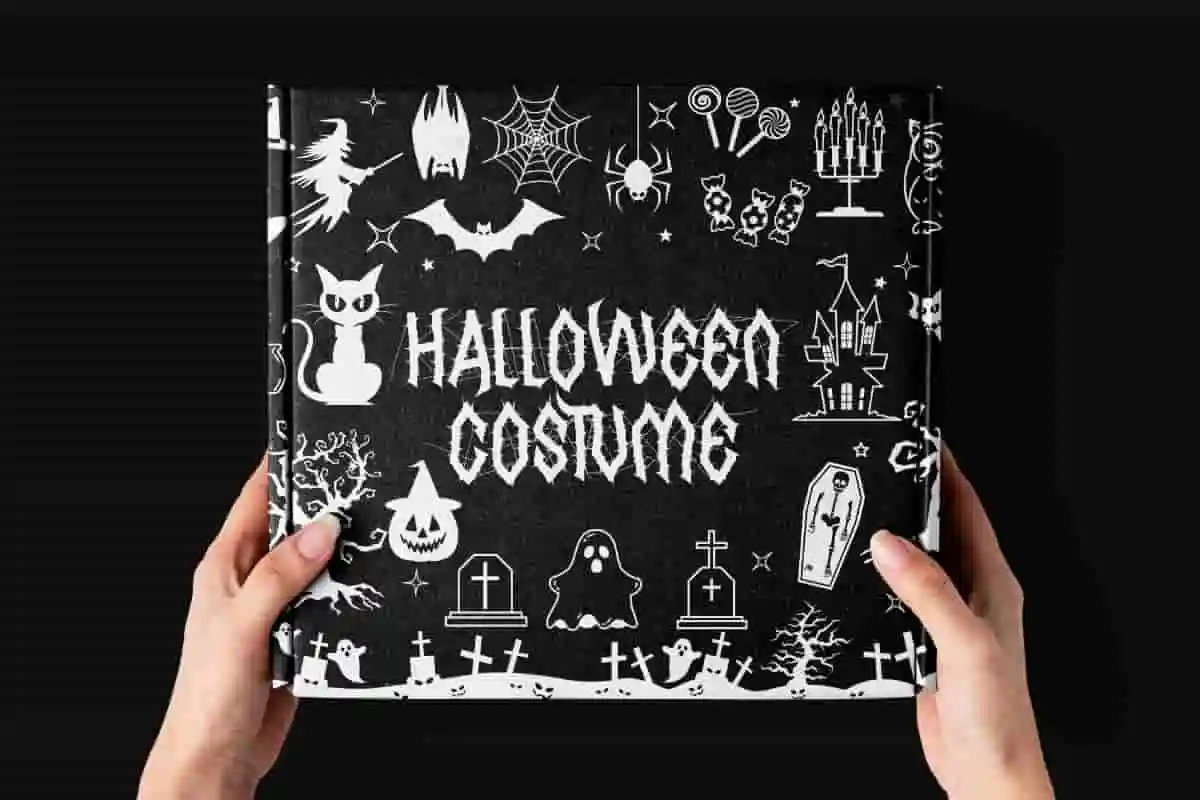
Psychodrama Font is a horror hardcore black metal display font by NoahType. This font has a black metal concept which is enhanced with thick lines which give an even more scary impression. It will be perfect for any designs, such as brand image, cover, custom design, invitation, label, marketing material, menu, poster, product packaging, quote, signage, web, and many more!
Psychodrama Font includes full set of ALL CAPS for Uppercase and Lowercase Basic Characters, Numerals, Punctuation, and Symbol. The Alternate characters of this font will give amazing touch and also a perfect choice for many industries, such as accessories, advertising, art, café, event or festival, fashion, game, movie, printing, publishing, etc.